The 3D effect font means three-dimensional effects. In the modern era, the 3D effect font is highly utilized in many ways. 3D effect font is nothing but innovative and cool. There is various font styles available in 3D effect font like an inner light, dark, outline, shadow, etc. It is having nice features that it includes uppercase, Latin, characters, and numerals. Use these files for designing a 3D logo mockup.
The 3D effect is highly today seen in clothes, T-shirts much more. The fonts have different colors, styles, and combinations of the 7 layers. The 3D effect font looks very attractive and high demands in the market.
USA Flag- 3D color SVG font is very pretty in new technology. The Font is very smooth to use where you can find crispy borders on your color and font. It is highly used Adobe Photoshop CC 2017 + IIIustrator CC 2018 and Mac apps. Having nice features with multiply layer effect and light font on dark background. Use these fonts for designing a political flyer template.
3D Styled Sandwich Fonts
Sandwich Bevelled 3D-type font allows you many types of verities to use. The font is perfect for Logos, signage, posters, Apparel, Headlines, etc. For this, there are files to be included in OTF, TTF, and web. The Layered with sandwich construction means gives you and unique 3D style for your text. Having features like basic Latin, a set of caps, symbols, numbers, and punctuation.
Layered Font Set 3D Bulb lamp having 12 component font which layered in different ways. Having very creative endless classic titling effect used in skilled sign painters. Having many style to be used in free available like Bulb lamp 1shadow left. otf, right .otf, face.otf etc. much more. The font is very unique to create and quickly. The File included format is .otf.
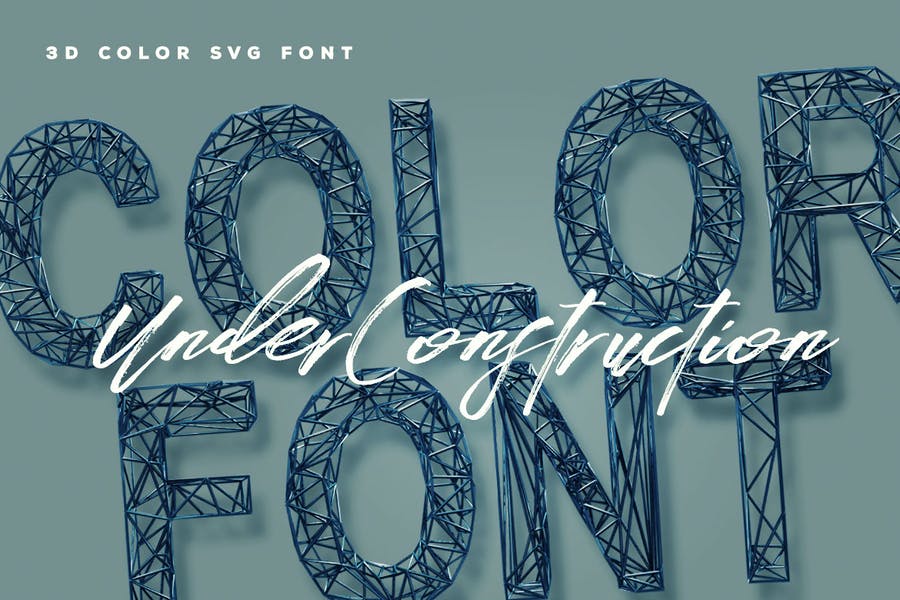
3D Handwritten Girly Fonts
3D Futuristic Fonts
3D Concrete Lettering Fonts
Creative 3D Sci Fi Fonts
Rusty 3D Bulb Fonts
Dripping 3D Color Fonts
3D Luxury Gold Fonts
3D Industrial Fonts
3D Funny Brick Fonts
3D Metallic Opentype Fonts
3D Cake Lettering Fonts
3D Decorative SVG Fonts
3D Futuristic Lettering Fonts
3D Grass Style Fonts
Ice Carved 3D Fonts
Industrial 3D Color Fonts